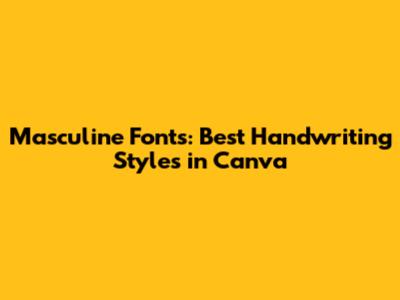
Masculine Fonts: Best Handwriting Styles In Canva
Hey guys! Ever found yourself needing a font that screams strength, confidence, and a bit of that rugged charm? Well, you're in luck! Canva has a treasure trove of fonts perfect for adding a masculine touch to your designs. Let's dive into some of the best masculine handwriting fonts Canva has to offer, and how you can use them to seriously level up your projects. Whether you're designing a logo, crafting social media posts, or creating marketing materials, the right font can make all the difference. So buckle up, and let's explore the world of manly fonts!
Why Choose a Masculine Handwriting Font?
Before we jump into specific fonts, let's talk about why you might want to use a masculine handwriting font in the first place. Masculine fonts can evoke feelings of power, reliability, and authenticity. They're perfect for brands or projects that want to project a strong, grounded image. Think about it: a financial consulting firm might use a bold, confident font to convey trustworthiness, while an outdoor adventure company might opt for a rugged, slightly weathered font to suggest durability and resilience. The key is to choose a font that aligns with the overall message and tone you're trying to communicate.
Handwriting fonts, in particular, can add a personal and approachable feel to your designs. When combined with masculine characteristics, you get a unique blend of strength and authenticity. This can be especially effective for brands that want to connect with their audience on a more human level. For instance, a handcrafted goods store might use a masculine handwriting font to emphasize the care and attention that goes into their products. Or, a men's grooming brand might use a stylish, masculine script to convey sophistication and attention to detail. By carefully selecting the right font, you can create a visual identity that resonates with your target audience and sets you apart from the competition.
When selecting a font, consider its legibility and versatility. While a font may look fantastic at first glance, it's essential to ensure that it remains readable across different sizes and applications. A font that's too ornate or stylized may become difficult to decipher, especially in smaller sizes or when used for body text. Additionally, think about how well the font pairs with other design elements, such as images, colors, and graphics. A harmonious combination of fonts and visuals can create a cohesive and professional look, while a mismatched pairing can detract from the overall impact of your design. Ultimately, the goal is to choose a font that not only embodies the desired masculine qualities but also enhances the overall effectiveness of your communication.
Top Masculine Handwriting Fonts in Canva
Alright, let's get to the good stuff! Here are some of my favorite masculine handwriting fonts available in Canva, perfect for adding that extra oomph to your designs:
1. League Spartan
League Spartan is a bold, modern, and geometric sans-serif font that exudes confidence and strength. Its clean lines and sharp angles make it ideal for headlines, logos, and branding materials. League Spartan's strong presence commands attention and conveys a sense of authority, making it a popular choice for businesses and organizations seeking to project a professional and assertive image. The font's versatility allows it to be used effectively in both print and digital media, ensuring consistent brand representation across various platforms. Whether you're designing a website, creating marketing brochures, or developing a corporate identity, League Spartan can help you make a lasting impression. Its timeless appeal and clear legibility make it a reliable choice for projects that require a strong and impactful typographic statement.
League Spartan's distinct character stems from its carefully crafted letterforms, which are designed to maximize readability and visual impact. The font's geometric structure provides a sense of order and precision, while its bold weight ensures that it stands out in any context. Its simplicity is its strength, allowing it to be easily paired with other fonts and design elements. League Spartan's widespread adoption across various industries speaks to its effectiveness and adaptability. From technology startups to established corporations, businesses of all sizes rely on League Spartan to convey their message with clarity and confidence. Its timeless design ensures that it remains relevant and impactful for years to come, making it a valuable asset in any designer's toolkit.
2. Bebas Neue
Bebas Neue is another fantastic sans-serif option that's tall, condensed, and incredibly versatile. It's got a modern, urban vibe that works great for posters, headings, and anything that needs to grab attention. Bebas Neue's clean lines and narrow proportions make it an excellent choice for designs that require a space-saving yet impactful font. Its versatility extends to various applications, including web design, print media, and branding. The font's modern aesthetic aligns well with contemporary design trends, making it a popular choice among designers seeking a fresh and stylish look. Whether you're creating a website header, designing a promotional flyer, or developing a brand identity, Bebas Neue can help you achieve a professional and eye-catching result.
Bebas Neue's condensed form allows it to fit more text into a limited space without sacrificing legibility. This feature is particularly useful for headlines and titles, where conveying a message quickly and effectively is crucial. The font's clean and uncluttered design ensures that it remains readable even at smaller sizes, making it suitable for body text as well. Bebas Neue's widespread adoption across various industries demonstrates its adaptability and effectiveness. From fashion brands to tech companies, businesses of all kinds rely on Bebas Neue to communicate their message with clarity and style. Its timeless appeal and modern aesthetic make it a valuable asset in any designer's toolkit.
Furthermore, Bebas Neue is available as a free font, making it accessible to designers and businesses of all sizes. Its open-source nature encourages collaboration and community involvement, with designers contributing to its ongoing development and refinement. Bebas Neue's enduring popularity and widespread use are a testament to its quality and versatility. Its ability to convey modernity, style, and impact makes it an indispensable tool for anyone looking to create compelling visual communications.
3. Montserrat
Montserrat is a geometric sans-serif font inspired by the urban typography of Buenos Aires. It's clean, legible, and has a classic feel that makes it perfect for a wide range of projects. Montserrat's versatility allows it to be used effectively in both print and digital media, ensuring consistent brand representation across various platforms. Its balanced letterforms and generous spacing contribute to its excellent readability, making it a popular choice for body text as well as headlines. Whether you're designing a website, creating marketing brochures, or developing a corporate identity, Montserrat can help you achieve a professional and polished look. Its timeless appeal and clean design make it a reliable choice for projects that require a sophisticated and approachable typographic statement.
Montserrat's geometric structure provides a sense of order and precision, while its subtle curves add a touch of warmth and personality. The font's balanced proportions and consistent weight distribution ensure that it remains legible even at smaller sizes. Montserrat's widespread adoption across various industries speaks to its effectiveness and adaptability. From creative agencies to educational institutions, businesses of all sizes rely on Montserrat to convey their message with clarity and style. Its timeless design ensures that it remains relevant and impactful for years to come, making it a valuable asset in any designer's toolkit.
Moreover, Montserrat is available as a free font, making it accessible to designers and businesses of all sizes. Its open-source nature encourages collaboration and community involvement, with designers contributing to its ongoing development and refinement. Montserrat's enduring popularity and widespread use are a testament to its quality and versatility. Its ability to convey clarity, style, and approachability makes it an indispensable tool for anyone looking to create compelling visual communications.
4. Oswald
Oswald is a reworking of the classic gothic sans-serif typeface. Designed initially by Vernon Adams, Oswald is intended to be used freely across the digital devices of today. Oswald's multiple weights allow for flexibility in design, making it suitable for headlines, body text, and various other applications. Its condensed proportions make it an excellent choice for designs that require a space-saving yet impactful font. The font's modern aesthetic aligns well with contemporary design trends, making it a popular choice among designers seeking a fresh and stylish look. Whether you're creating a website header, designing a promotional flyer, or developing a brand identity, Oswald can help you achieve a professional and eye-catching result.
Oswald's condensed form allows it to fit more text into a limited space without sacrificing legibility. This feature is particularly useful for headlines and titles, where conveying a message quickly and effectively is crucial. The font's clean and uncluttered design ensures that it remains readable even at smaller sizes, making it suitable for body text as well. Oswald's widespread adoption across various industries demonstrates its adaptability and effectiveness. From fashion brands to tech companies, businesses of all kinds rely on Oswald to communicate their message with clarity and style. Its timeless appeal and modern aesthetic make it a valuable asset in any designer's toolkit.
Furthermore, Oswald is available as a free font, making it accessible to designers and businesses of all sizes. Its open-source nature encourages collaboration and community involvement, with designers contributing to its ongoing development and refinement. Oswald's enduring popularity and widespread use are a testament to its quality and versatility. Its ability to convey modernity, style, and impact makes it an indispensable tool for anyone looking to create compelling visual communications.
Tips for Using Masculine Fonts Effectively
Now that you've got some great font options, here are a few tips to keep in mind when using masculine fonts in your designs:
- Contrast is Key: Pair your masculine font with a softer, more delicate font to create visual interest and balance.
- Color Matters: Use strong, bold colors like navy blue, forest green, or deep red to complement the masculine feel of your font.
- White Space is Your Friend: Give your font room to breathe by using plenty of white space in your design. This will help it stand out and make a bigger impact.
- Consider Your Audience: Think about who you're trying to reach with your design and choose a font that resonates with them.
Conclusion
So there you have it – a roundup of some fantastic masculine handwriting fonts in Canva that can seriously elevate your designs. Whether you're going for bold and powerful or rugged and authentic, Canva has a font to suit your needs. Experiment with these fonts, play around with different pairings, and don't be afraid to get creative. With the right font, you can create designs that not only look great but also communicate your message with strength and confidence. Now go out there and make some seriously awesome stuff!